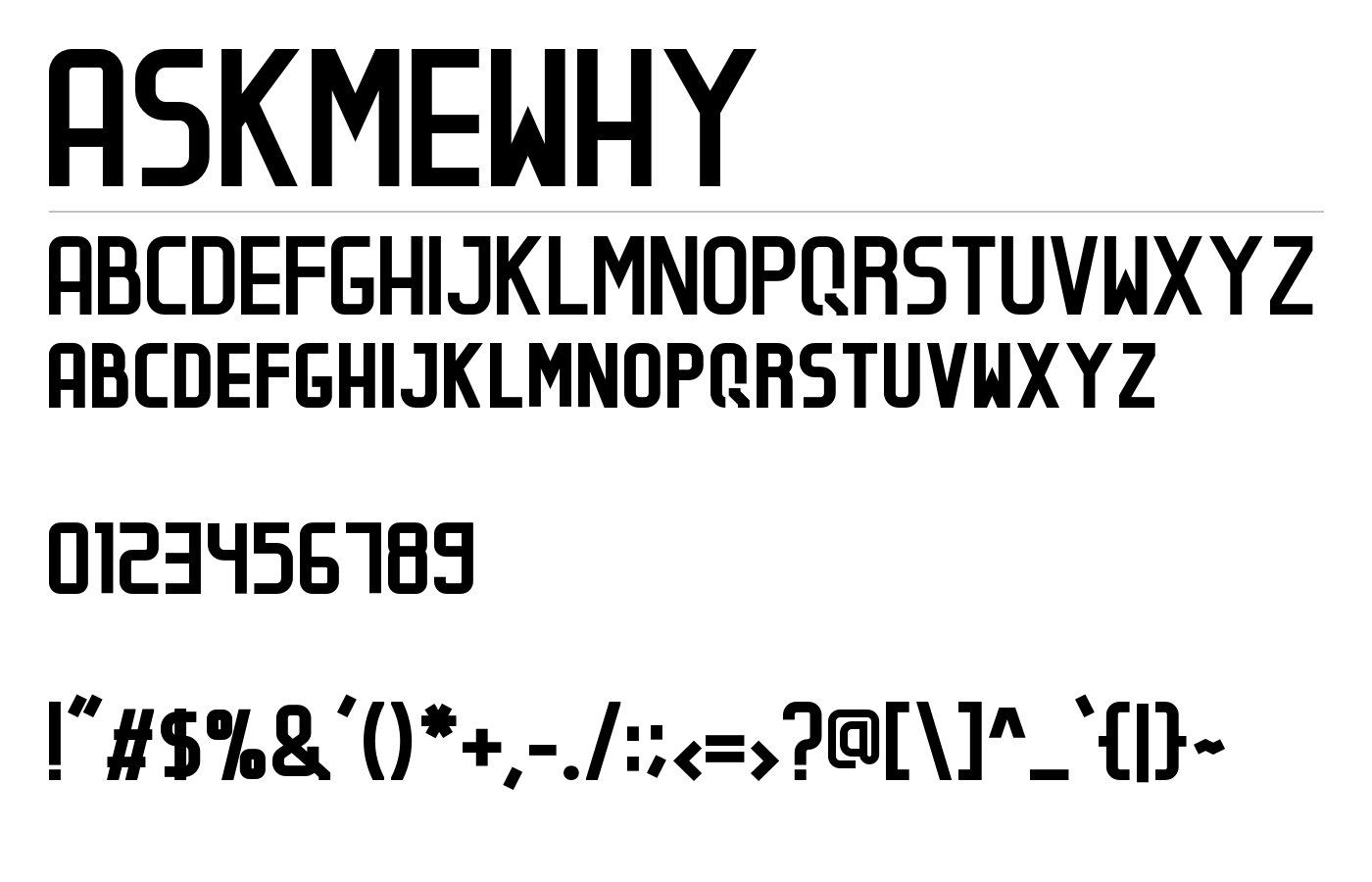
ASKMEWHY is a bold, condensed sans-serif font with a modern, geometric design that features tall, narrow letterforms and consistent stroke widths. Its clean lines and distinctive angular details give it a strong, futuristic feel, making it ideal for impactful headlines, branding, and editorial projects where a contemporary, confident look is desired. This font works well in situations that require clarity and a sharp, assertive personality without sacrificing readability.
ASKMEWHY Font
About ASKMEWHY Font